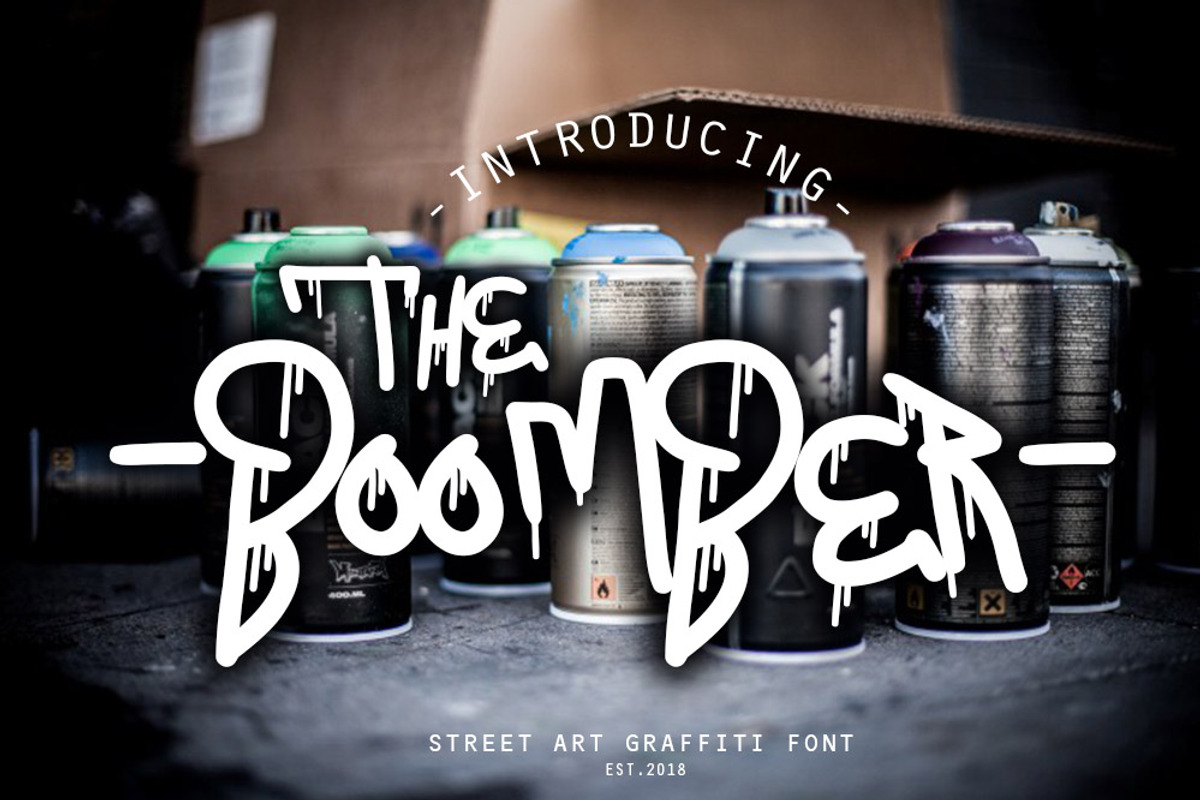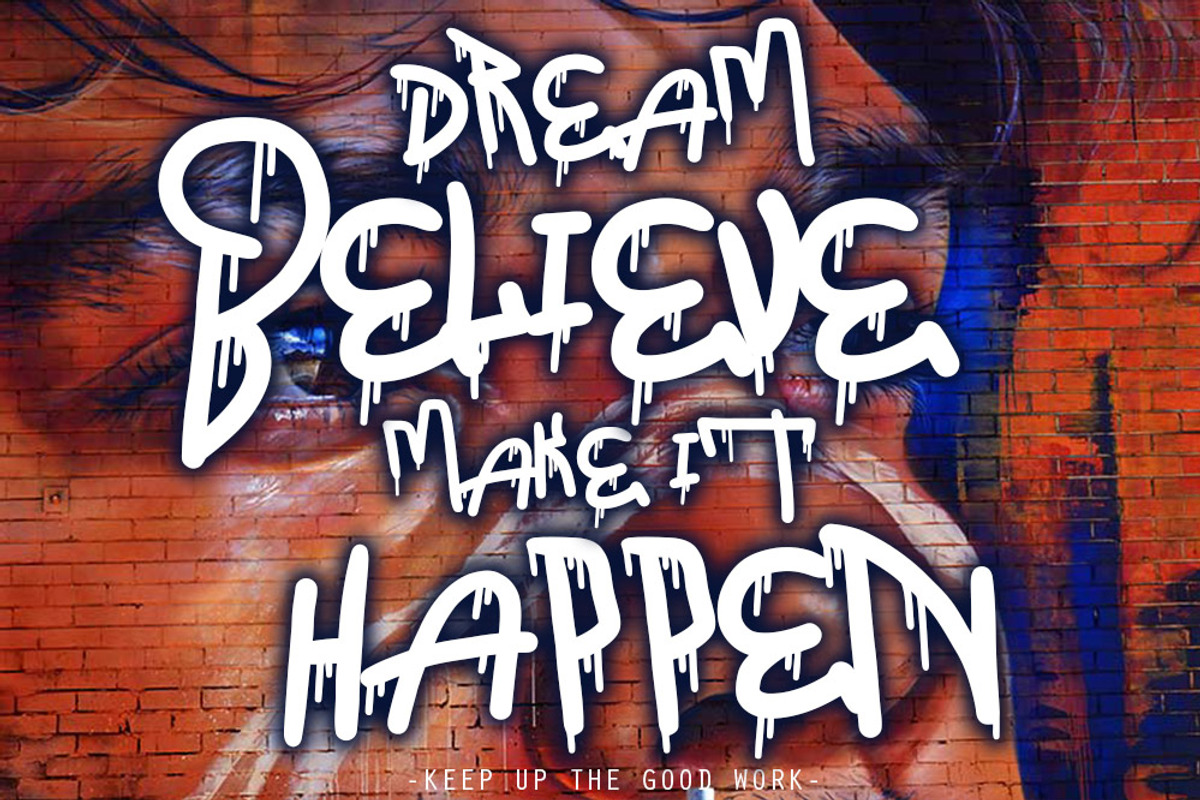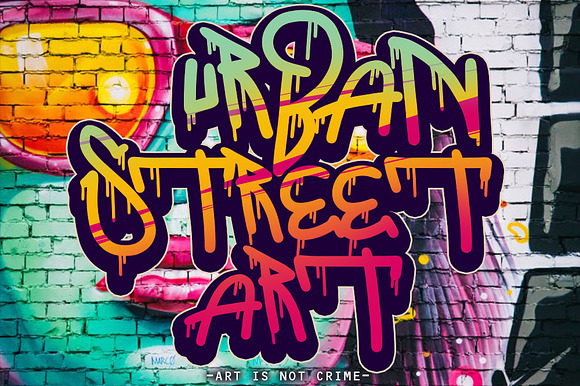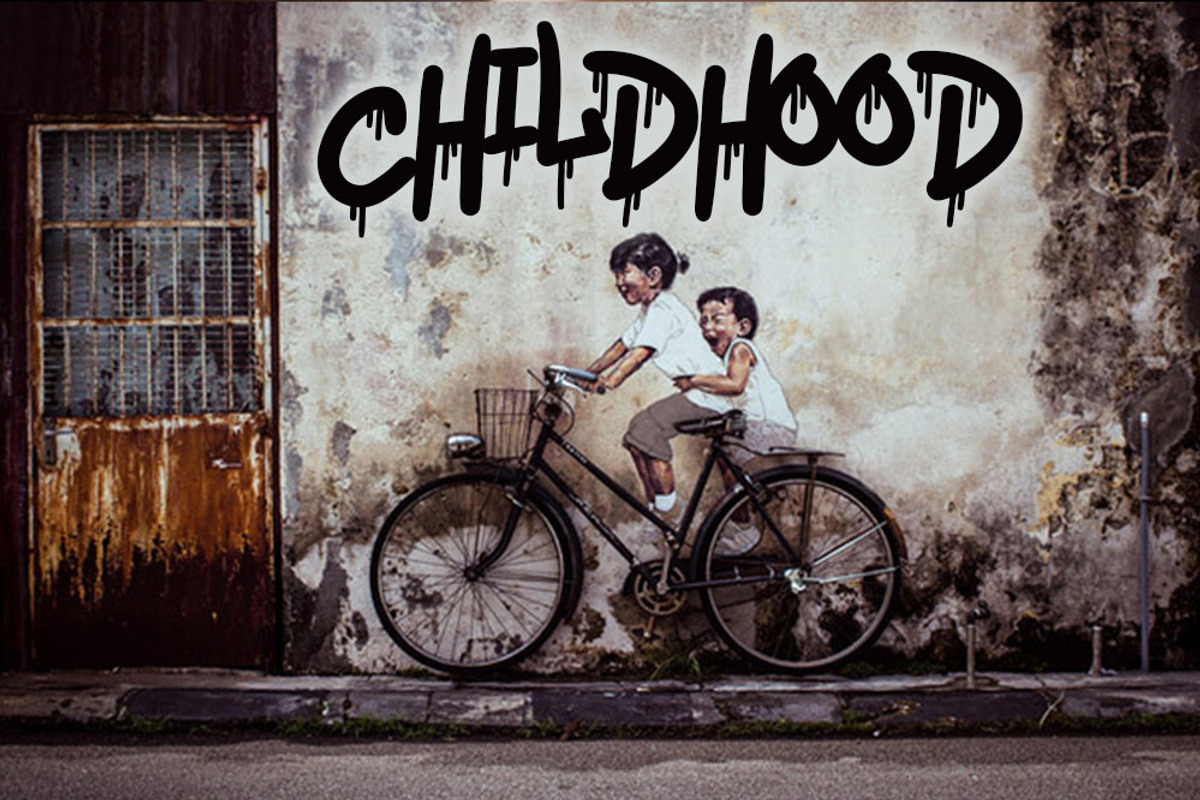
THE BOOMBER ( GRAFFITI FONT )
introducing the latest font graffiti, the boomber graffiti font. This font is perfect for t-shirt designs, posters, stickers and others. very easy to use, and this font also has several features among which are uppercase, lowcase, numeral & punctuations, otf and ttf. what are you waiting for, now all can make graffiti designs easily using this font. enjoy it. thanks.